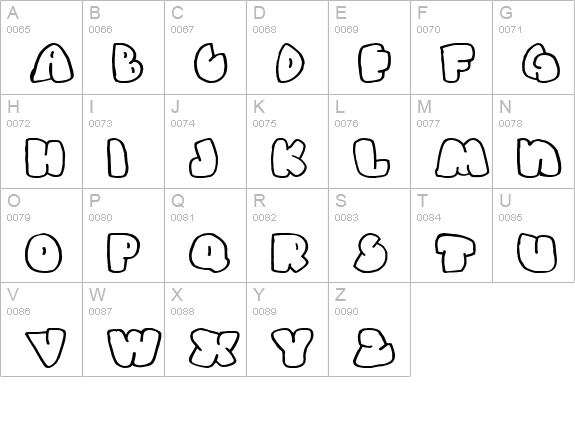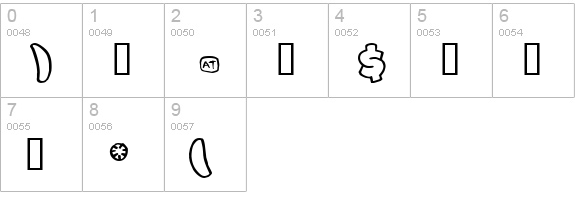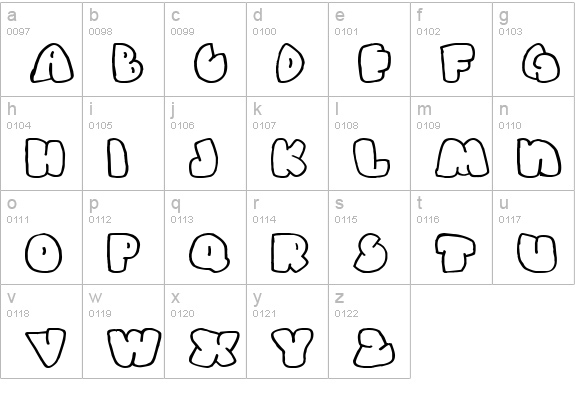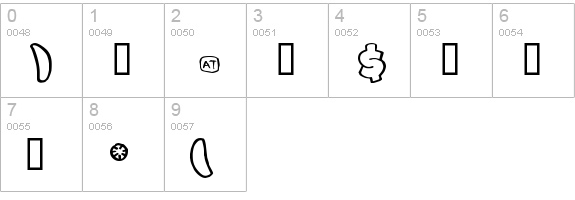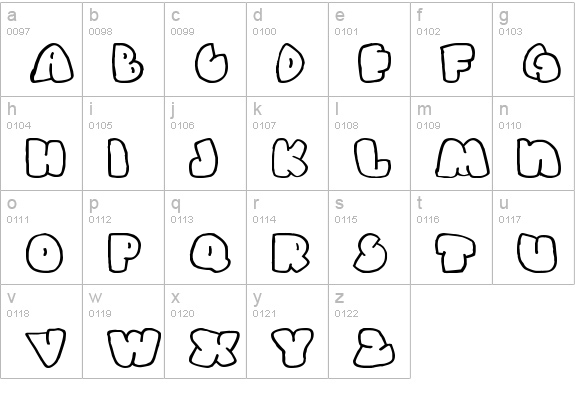
Gas Huffer Phat Font Details
Introducing Gas Huffer Phat, a bold and powerful font that exudes strength and confidence. Designed with a modern and edgy touch, this font is perfect for making a statement in any design project. Gas Huffer Phat is characterized by its thick and robust letterforms, which demand attention and leave a lasting impression. Its strong and sturdy appearance makes it ideal for creating eye-catching headlines, logos, and branding materials. But what sets Gas Huffer Phat apart from the rest is that it is not only visually impactful, but it is also free! That's right, this incredible font is freely available to download at FontsMarket.com. Now you can enhance your designs without breaking the bank. Whether you're a professional designer or a creative enthusiast, Gas Huffer Phat will take your projects to new heights. Its versatility allows it to be used in a wide range of applications, from posters and advertisements to social media graphics and website designs. With Gas Huffer Phat, you can effortlessly add a touch of boldness and personality to your designs. Its clean and legible letterforms ensure that your message is conveyed with clarity and impact. So don't miss out on this amazing opportunity to elevate your design game. Download Gas Huffer Phat for free at FontsMarket.com and witness the transformation it brings to your projects. Embrace the power of this font and unleash your creativity like never before.